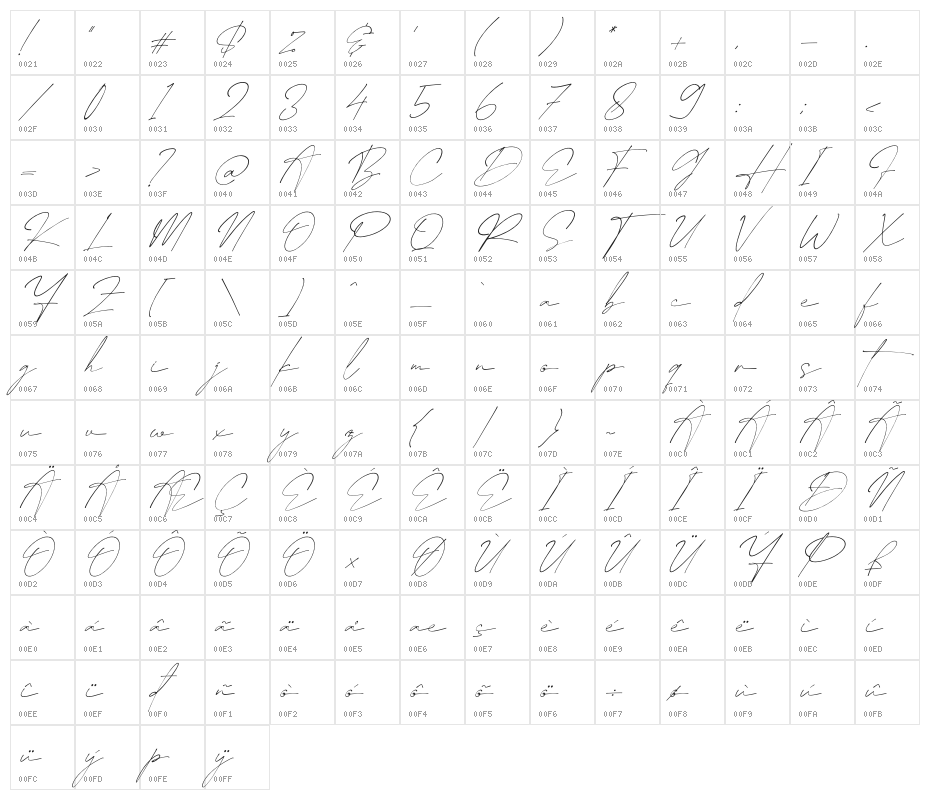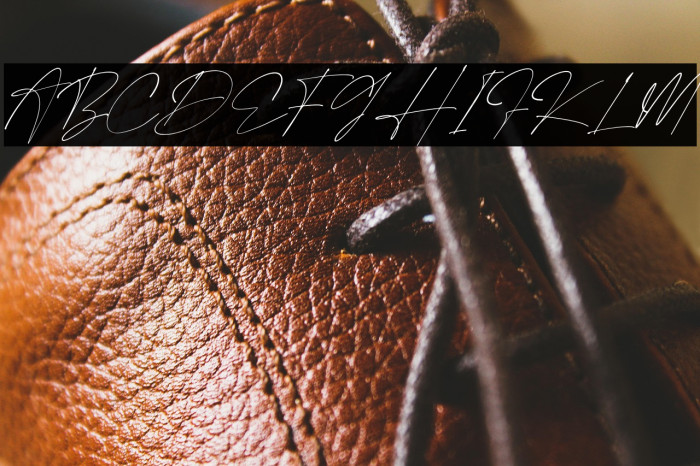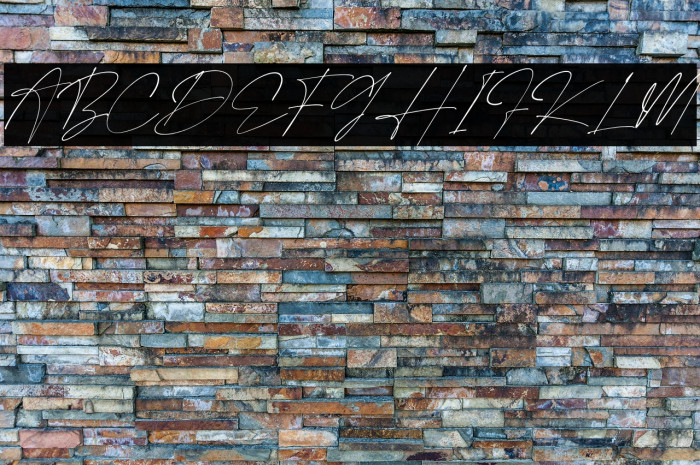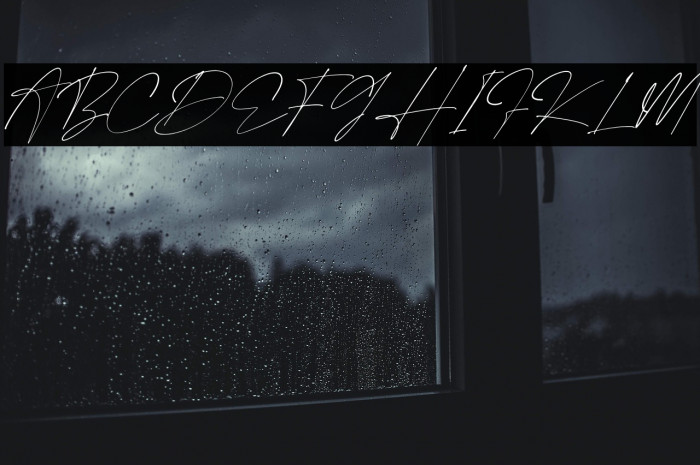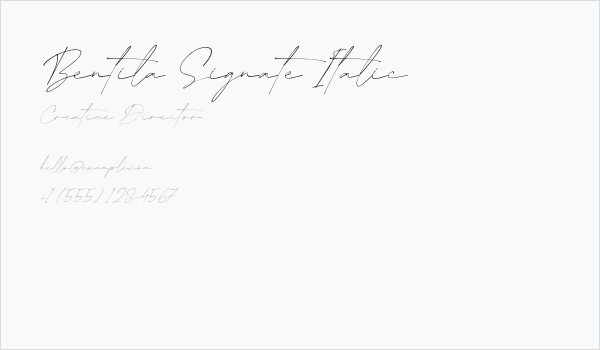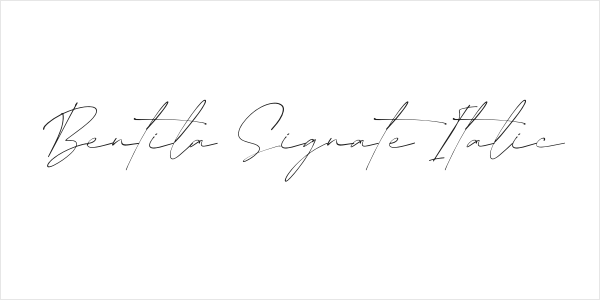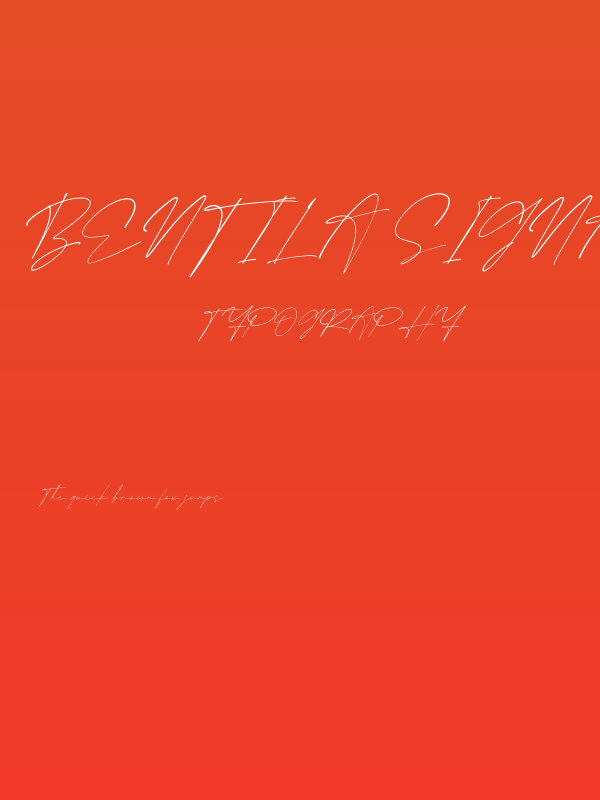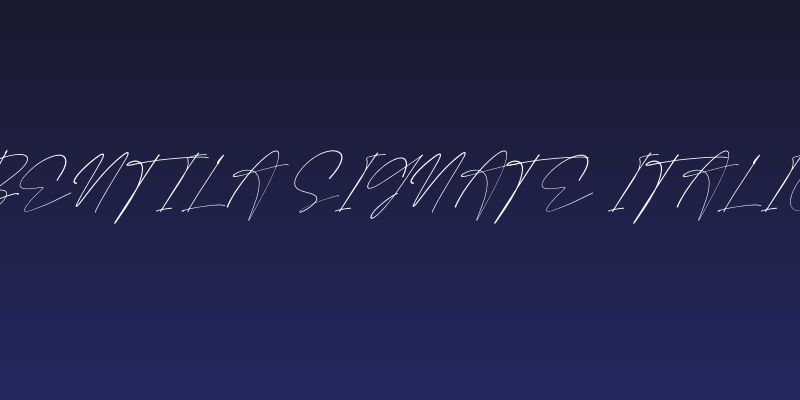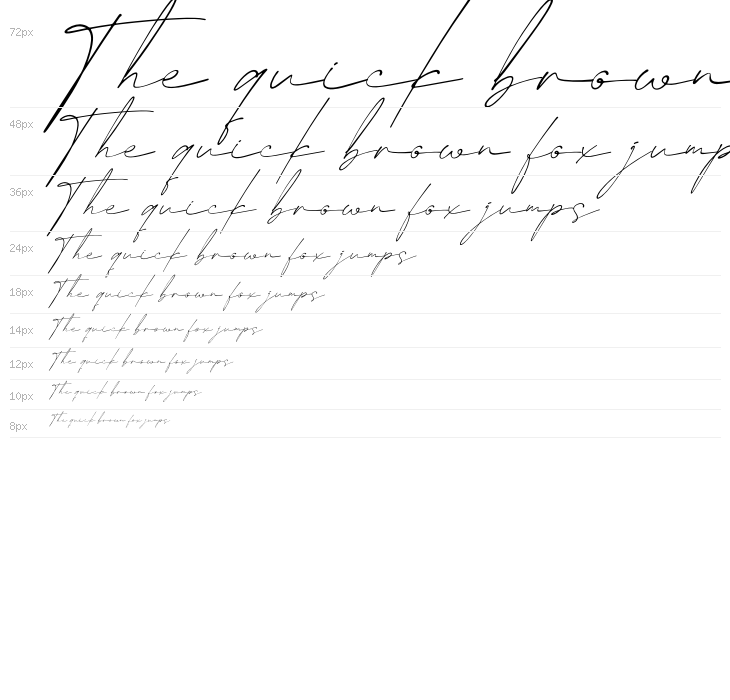
Bentila Signate Italic Font
Bentila Signate Italic Description
This font features a flowing, cursive style that mimics elegant handwriting. The characters are connected with smooth, sweeping lines, giving it a fluid and dynamic appearance. The uppercase letters are tall and slender, while the lowercase letters maintain a consistent slant, enhancing the script's graceful look. The numerals and special characters are designed to match the overall aesthetic, with a delicate and refined touch. The thin strokes and subtle curves contribute to its sophisticated and stylish feel, making it ideal for projects that require a personal and artistic touch.
Overall StyleElegant, Artistic
Use CaseLogos, Invitations, Artistic projects
Proposed ProjectsIdeal for wedding invitations, personal branding, greeting cards, and artistic projects.